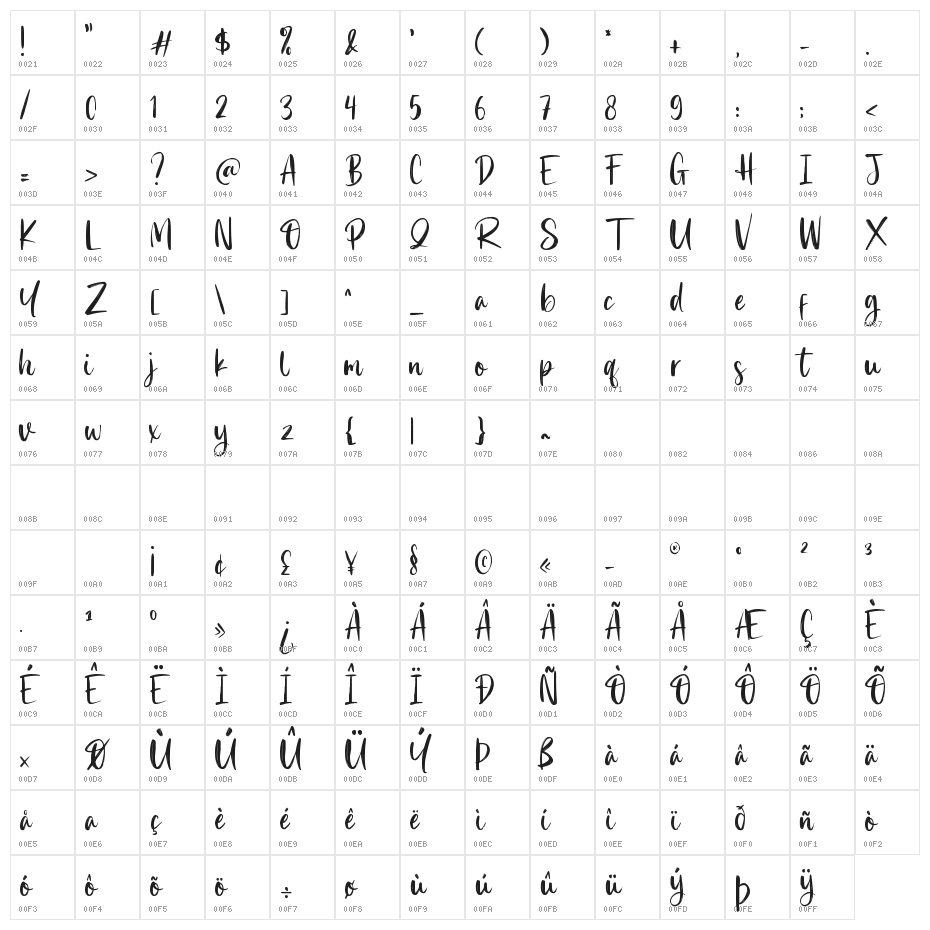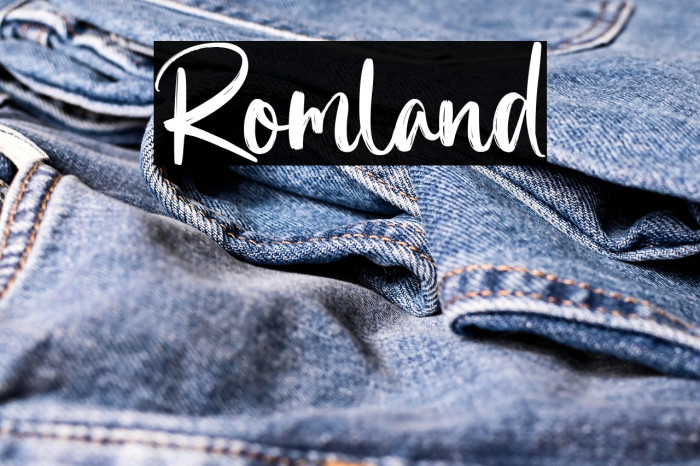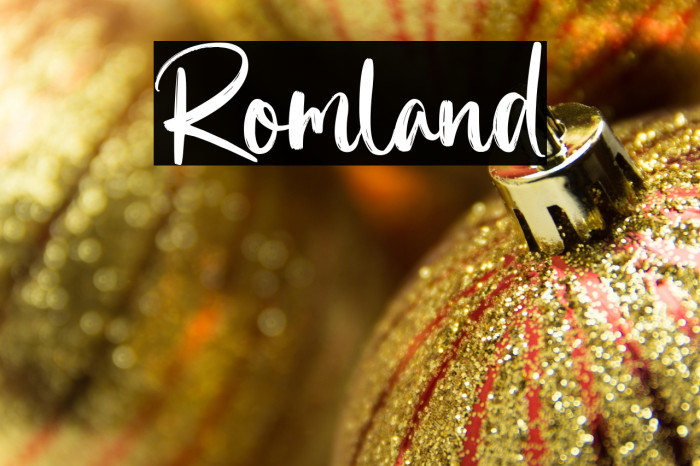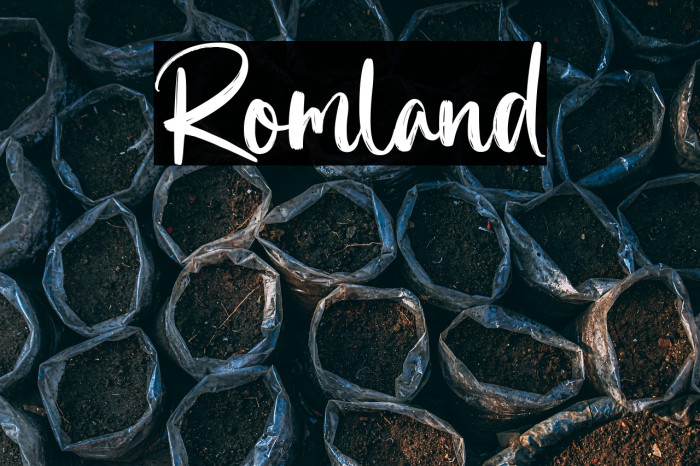
Romland Font
This font features a lively and energetic handwritten style with a modern twist. The characters are bold and fluid, showcasing a playful yet sophisticated appearance. The uppercase letters are tall and slightly slanted, while the lowercase letters maintain a consistent flow with varying stroke widths. Numbers and special characters follow the same dynamic style, adding to the font's versatility. The overall look is both casual and elegant, making it suitable for a variety of creative projects.
A bold, modern handwritten font with a playful and sophisticated style.
- Proposed Projects: Ideal for branding, invitations, social media graphics, and creative posters.
- Use Case: Logos, Headlines, Invitations